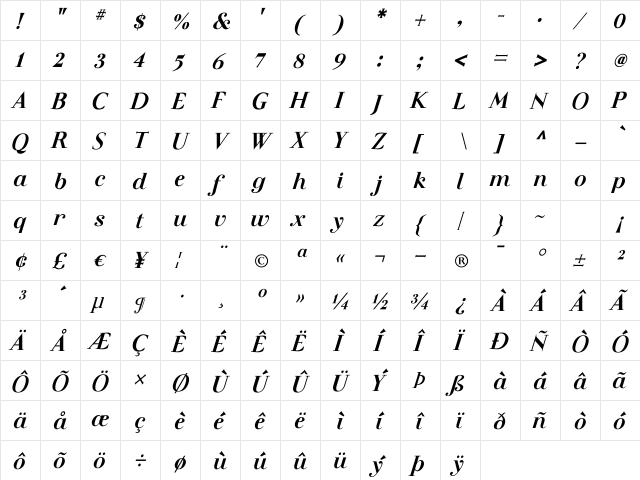
Felina SerifExtra Bold Italic Regular Font Preview
Design Context for Felina SerifExtra Bold Italic Typeface
Felina SerifExtra Bold Italic carries the refined structure of traditional serif typography, with bracketed terminals and considered proportions that communicate credibility and craft. The dynamic lean of this cut emphasises speed and emphasis in any layout. The heavy weight commands attention and anchors typographic hierarchies.